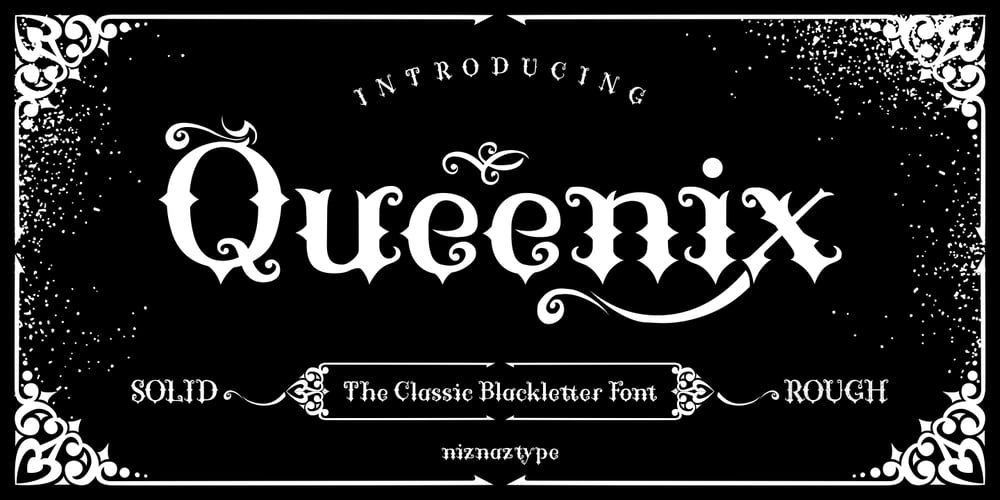
Queenix Font Family was designed by Muhammad Nazarudin and published by Niznaztype. Queenix contains 2 styles and family package options. Queenix is a new blackletter font with unity modern and classicstyles. This font very comfortable for designs that put a theme suchas classic, vintage, retro, gothic, darkness, metal, rock and roll ormusic concepts. Queenix have a strongest character in your design.It can give a different style. This font have two style : solid andrough.Queenix have contain :- Uppercase- Lowercase- Numeral, symbol and punctuation- Multilingual Language- Alternate Glyph- Ligature- Bonus ornamentQueenix solid is giving a soul of art in design, but Queenix roughvery strong’s character will give a high impression. Queenix also canused for themes like postmodern, the past history and others.Please, enjoy it with my this font product.Send me email in emnazar@gmail.com if you have any question.Thank a lot